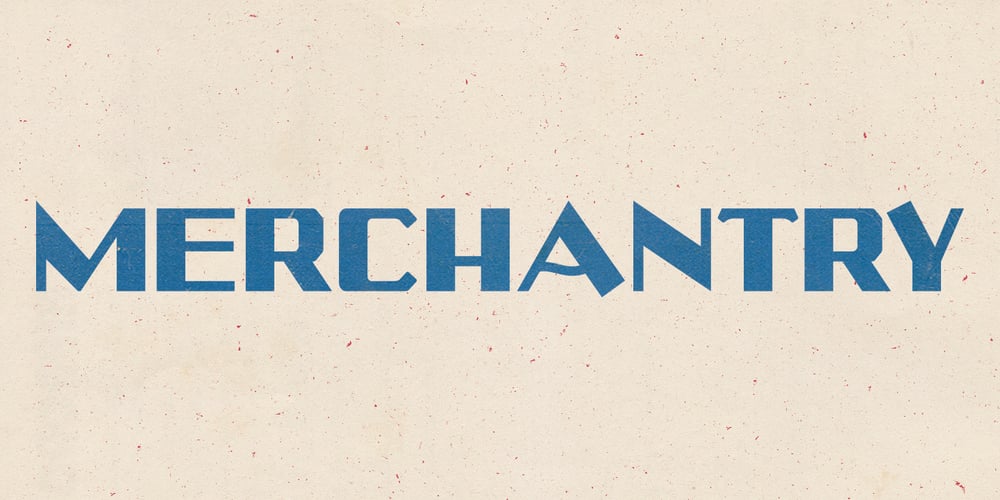
Merchantry Font Family was designed by Brian Haines and published by Bushwick Happy Hour. Merchantry contains 1 styles and family package options. Merchantry is a hard-working display font inspired by vintage signage you might find in local supermarkets of days gone by.